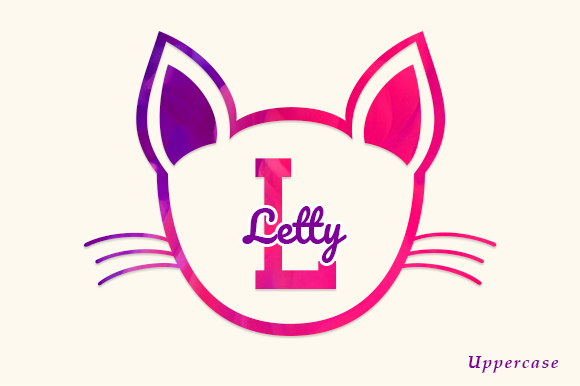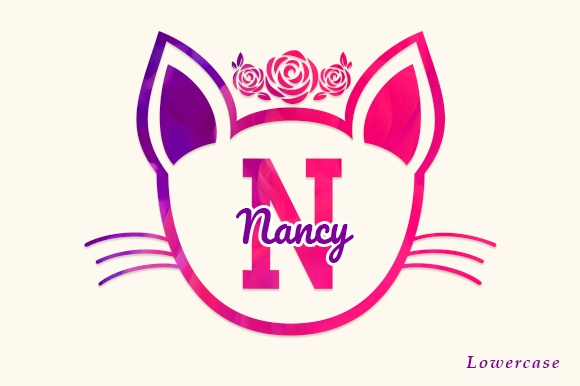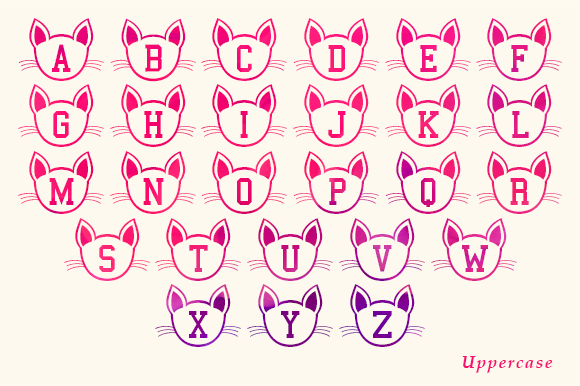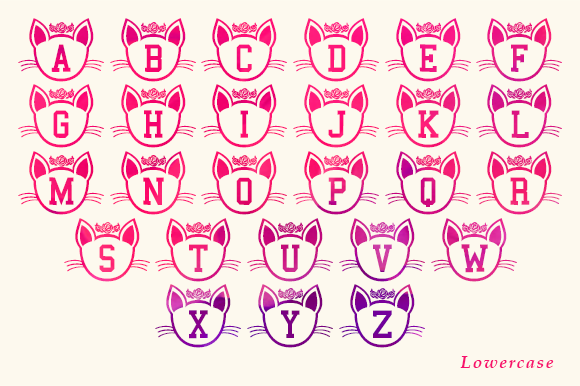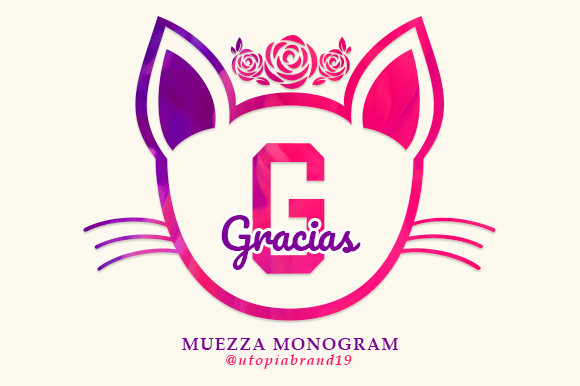
Introduction to Muezza Monogram Font
Do you remember that moment when you stumbled upon the perfect font for your creative project? For designers, it’s like finding a treasure chest filled with endless possibilities. That’s exactly what happened when I discovered the Muezza Monogram Font. As I delved into its world, I was captivated by its elegant design and adorable cat-themed ornaments.
What sets Muezza Monogram Font apart is its unique blend of sophistication and playfulness. Whether you’re working on a free download project or need a high-quality design resource, this font is sure to bring a touch of magic to your creations. Its transparent background makes it easy to layer with other elements, giving you complete control over your design.
Key Features of Muezza Monogram Font
- Unique monogram font with intricate details, ideal for personalizing various designs.
- Comes with a transparent background, allowing for easy customization and blending with other design elements.
- Perfect design resource for creating custom logos, invitations, and other personalized items.
- Easy to edit and customize, making it an excellent choice for designers and artists working on creative projects.
Honest Review: Muezza Monogram Font
I recently came across the Muezza Monogram Font and was immediately drawn to its elegant and sophisticated design. As a designer, I’m always on the lookout for high-quality design resources that can elevate my creative projects.
What works well with this font is its versatility. It’s perfect for adding a touch of luxury to your designs, whether it’s a wedding invitation or a logo for a high-end brand. The font is also available for free download, making it a fantastic resource for designers on a budget.
Some of the key features of the Muezza Monogram Font include:
- Great for adding a touch of elegance to your designs
What I would improve is the limited character set. While it’s not a major issue, it would be great to see more characters and glyphs added to the font. ⚠️
Overall, I’m really impressed with the Muezza Monogram Font and would definitely recommend it to fellow designers. With its high-quality design and free download option, it’s a fantastic resource to have in your design arsenal. ✨
Tips for Getting the Most Out of Muezza Monogram Font
Use the font in conjunction with other design elements to create a cohesive look. Experiment with different font sizes and colors to add depth and visual interest. Consider using the font in combination with other design resources for a unique and creative project.
The Muezza Monogram Font is perfect for logos, branding materials, and other design projects where a high-quality monogram font is required. Use it to add a touch of elegance and sophistication to your designs.
Alternatives to Muezza Monogram Font
2. Royalist Script Font
Royalist Script Font is a luxurious, high-end font perfect for corporate branding, luxury events, and high-end creative projects. It’s available for free download with a transparent background, making it a valuable design resource.
Compared to Muezza Monogram Font, Royalist Script Font has a more regal and sophisticated design, making it ideal for projects that require a sense of grandeur and elegance. It’s a great alternative for designers who want to add a touch of luxury to their designs.